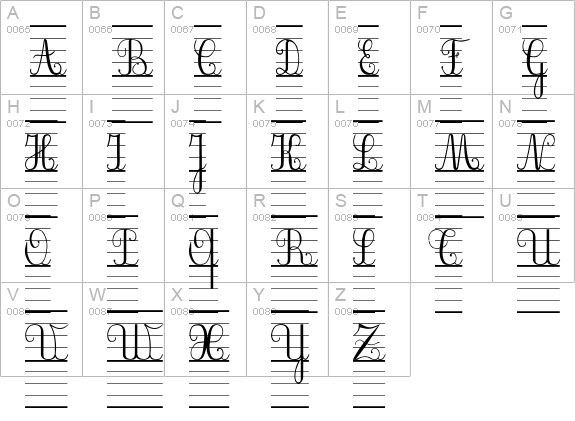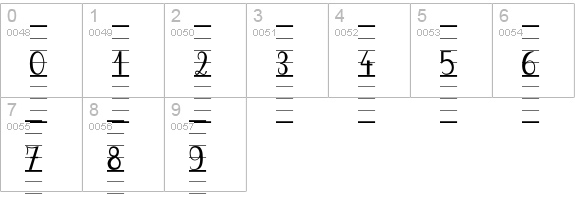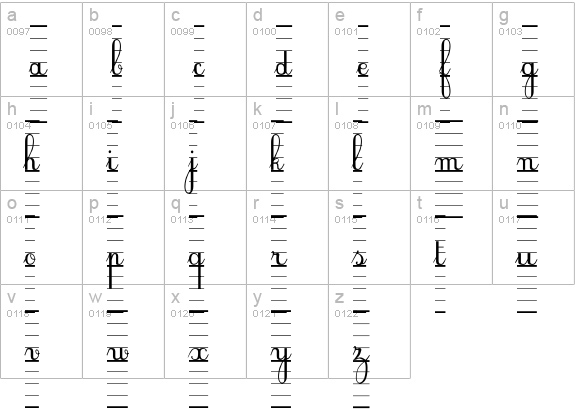
SeyesBDE Font Details
SeyesBDE font is a stunning typeface that exudes elegance and professionalism. Its sleek and modern design makes it perfect for a wide range of applications, from branding and logo design to editorial layouts and web design. This font features a unique blend of sharp lines and smooth curves, creating a harmonious balance that is pleasing to the eye. The letterforms are meticulously crafted with attention to detail, resulting in a high-quality, polished look. One of the standout features of SeyesBDE font is that it is freely available to download at FontsMarket.com. This means that designers and creatives can access this incredible font without any cost, making it an excellent choice for those on a budget or simply looking to add a touch of sophistication to their projects. Whether you are designing a magazine spread, creating a professional presentation, or developing a website, SeyesBDE font will elevate your work to new heights. Its versatility and timeless appeal make it a must-have for any designer's toolkit. With its extensive character set and multiple weights, SeyesBDE font provides endless possibilities for customization and creativity. Whether you prefer a bold and impactful look or a more subtle and refined style, this font has you covered. Download SeyesBDE font for free at FontsMarket.com and unlock the potential to create visually stunning designs that leave a lasting impression. Don't miss out on this incredible opportunity to enhance your projects with a font that combines beauty, functionality, and accessibility in one package.